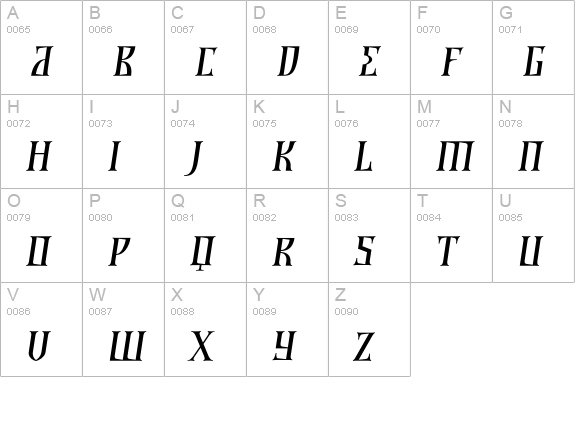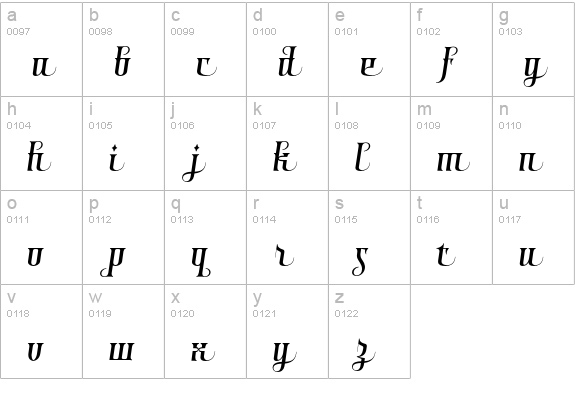
Shiraz-Italic Font Details
Shiraz-Italic is a distinctive, italic variant in the Shiraz typeface family \xE2\x80\x94 well suited to design and typography projects.
Introducing Shiraz-Italic, a stunning and elegant font that effortlessly captures attention and adds a touch of sophistication to any design project. With its sleek and modern design, this font is perfect for creating eye-catching headlines, stylish logos, and captivating titles. Shiraz-Italic boasts a unique combination of graceful curves and sharp edges, resulting in a truly versatile typeface that can be used in various design styles. Its slanted and italicized form adds a sense of motion and dynamism, making it perfect for conveying a sense of elegance and refinement. This font is not only visually appealing but also incredibly versatile. It seamlessly blends well with both serif and sans-serif fonts, allowing for endless creative possibilities. From branding and advertising to packaging and invitations, Shiraz-Italic is the perfect choice for any design project that requires a touch of sophistication and finesse. What makes Shiraz-Italic even more enticing is that it is available for free download at FontsMarket.com. This means that you can easily access this remarkable font and start incorporating it into your designs without any constraints or limitations. Whether you are a professional designer or an enthusiastic hobbyist, Shiraz-Italic is a must-have addition to your font collection. So, why wait? Elevate your designs to the next level with Shiraz-Italic. Download it today for free at FontsMarket.com and unlock a world of creativity and elegance at your fingertips.